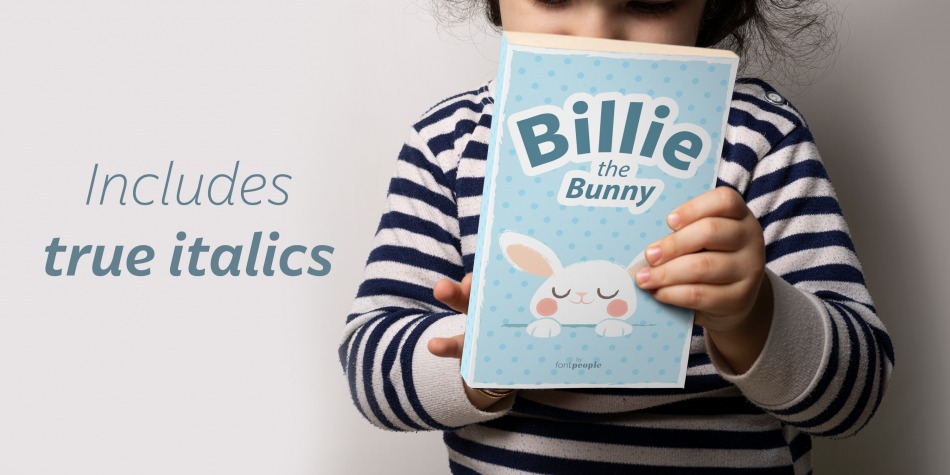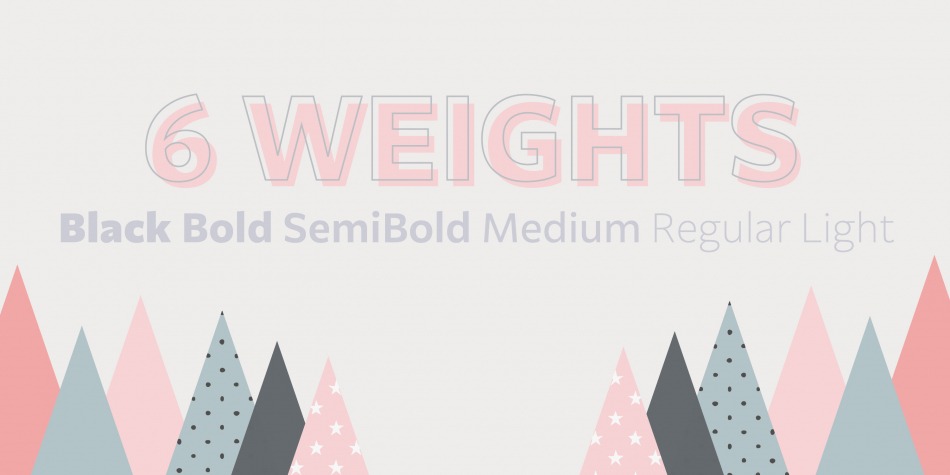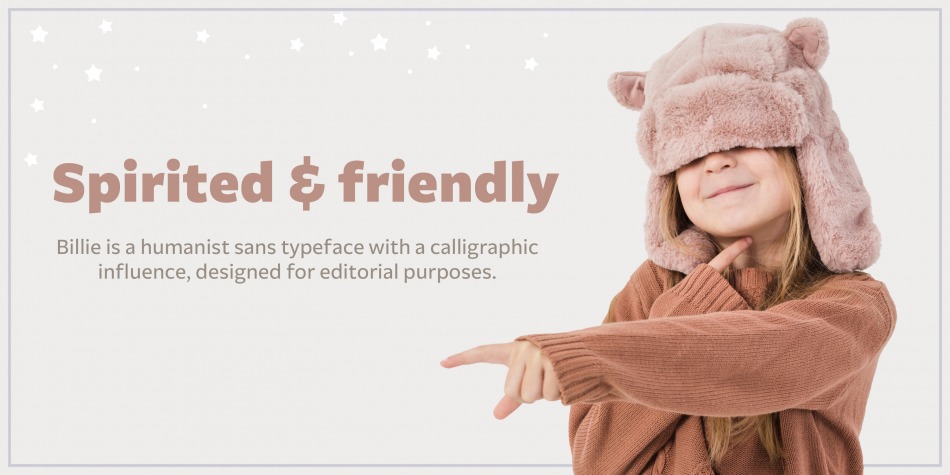
Billie Font Family
Billie Sans Serif Font
A modern neutral Sans, but with a distinct feel. Great for long reads but also for headlines, branding and advertising. It includes 6 weights in upright and true italics. The font family is loaded with different styles of numerals that can be activated through opentype features to enhances performance in text settings. This type family is spirited and has a friendly appeal. The typefamily is also available as two variable fonts.